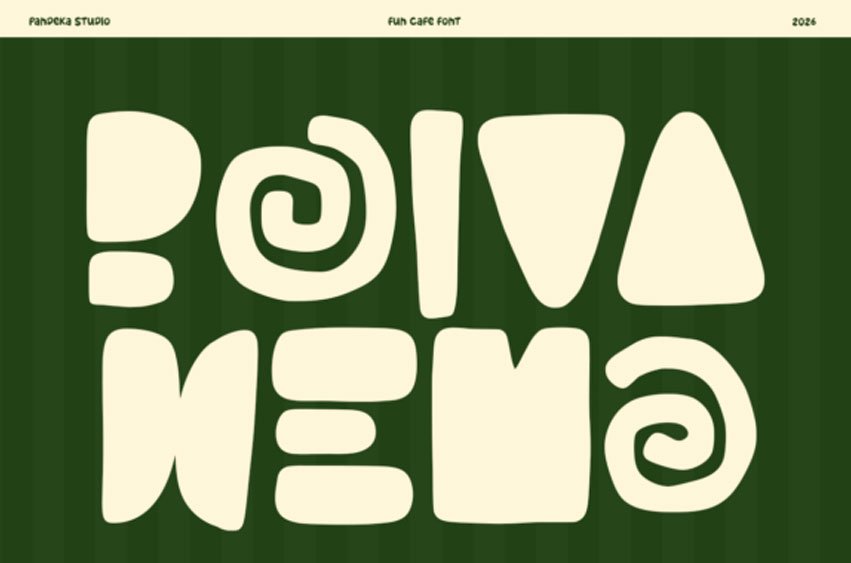
Bolva Hema Font is a fun and playful display font designed to bring warmth, charm, and personality into your designs.
With its quirky shapes and friendly character, this typeface creates a welcoming and cheerful atmosphere, perfect for cafe branding, food visuals, and lifestyle designs that aim to feel approachable and lively.